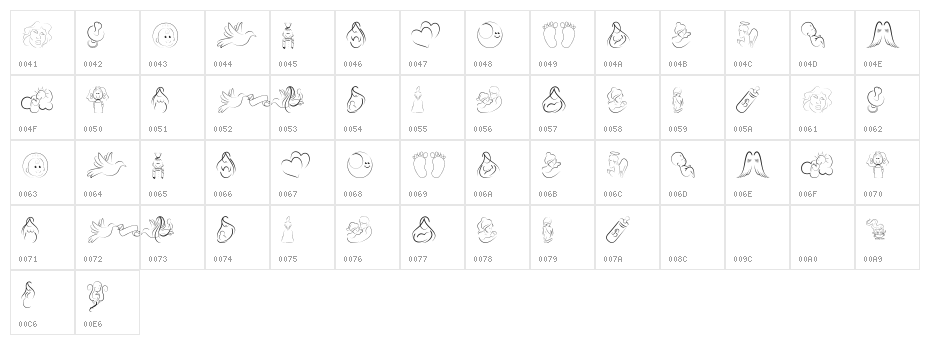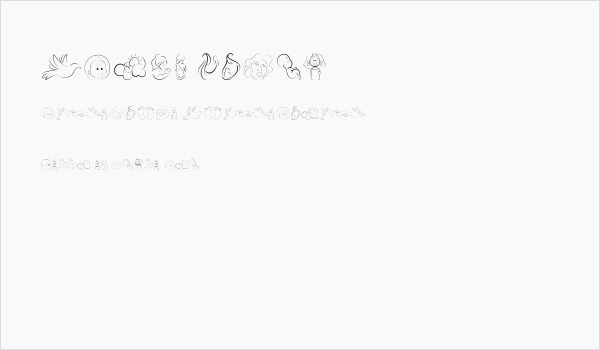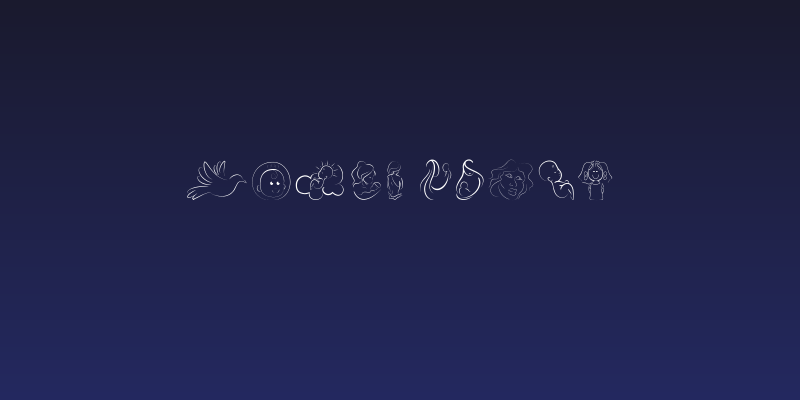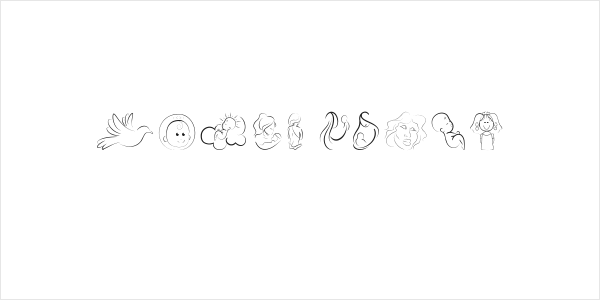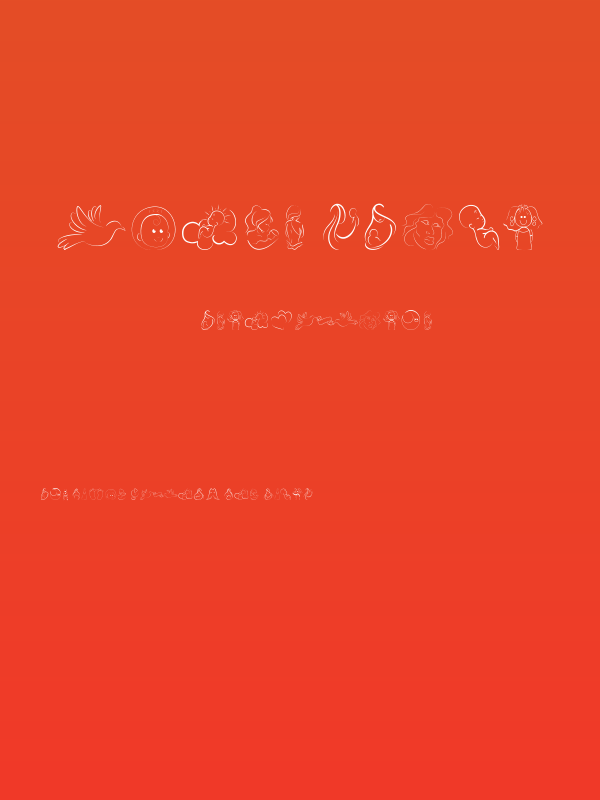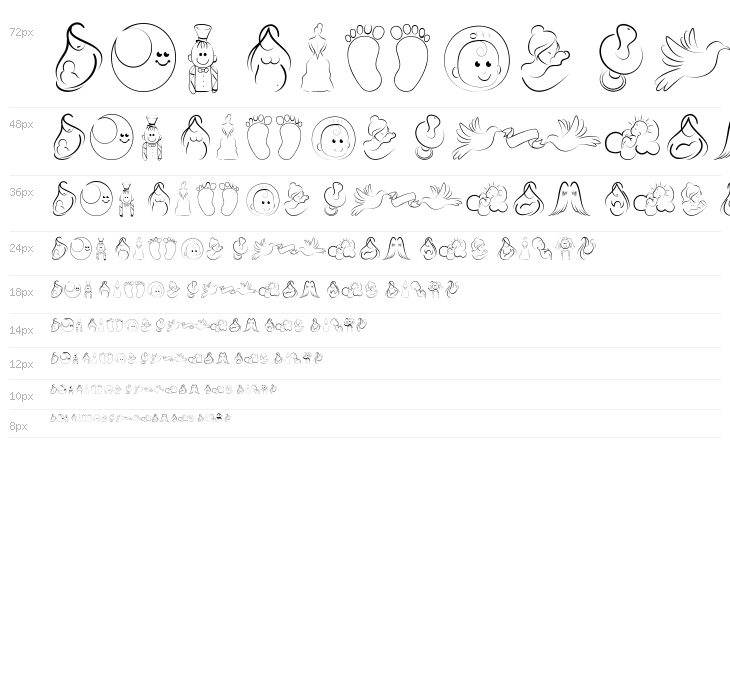
DCOXY stamp Font
DCOXY stamp Description
A decorative dingbat font composed of various hand-drawn illustrations, including faces, animals, hearts, baby-related icons, and whimsical shapes. The characters are outlined with a playful and light line quality, giving a friendly and informal appearance.
| Overall Style | Decorative, Playful, Whimsical |
| Use Case | Icons, Decorative elements, Themed graphics |
| Proposed Projects | Children’s books, baby shower invitations, greeting cards, playful branding, educational materials. |